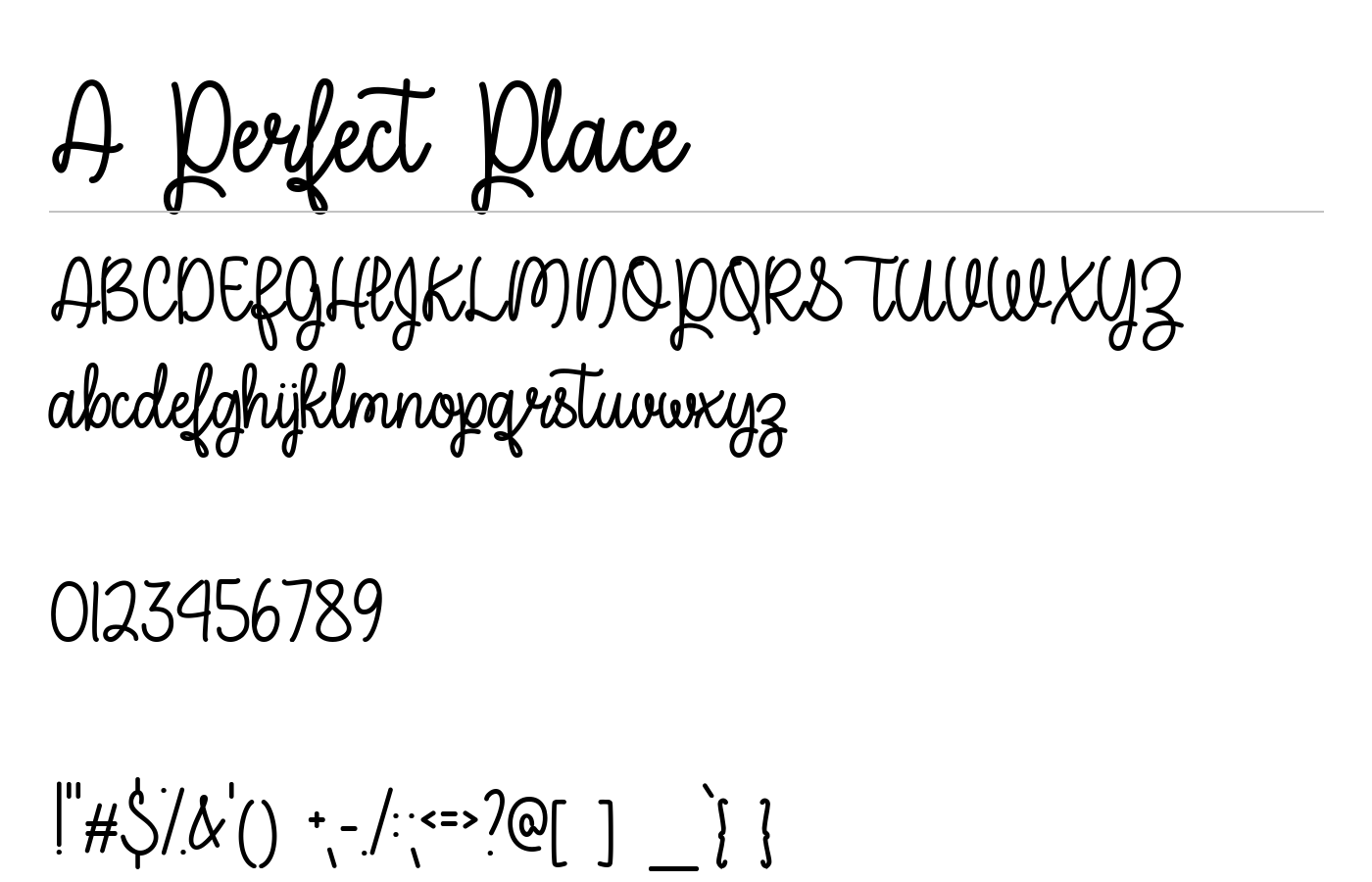
A Perfect Place is a playful and charming handwritten script font with a casual, friendly feel. Its smooth, rounded strokes and connected letterforms give it a warm, approachable personality, making it ideal for invitations, branding, and creative projects that seek a personal touch. This font works especially well in designs that want to evoke creativity and warmth without sacrificing legibility.
A Perfect Place Font
About A Perfect Place Font
| Font family | A Perfect Place Font |
| Designer | Misti's Fonts |